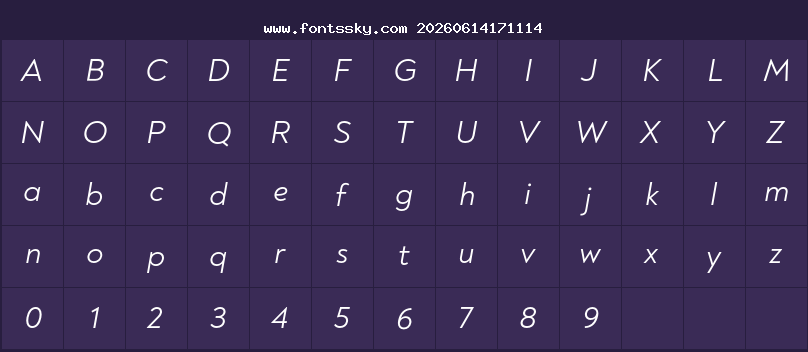
• Font Name: Noah
• Full Font Name: Noah Regular Italic
• Designer: Svet Simov, Radomir Tinkov, Stan Partalev
• Manufacturer: Fontfabric LLC
About Noah.otf
Noah.otf is a modern, elegant sans-serif font designed for ultimate readability and visual harmony. Perfect for branding, headlines, web design, and print materials.